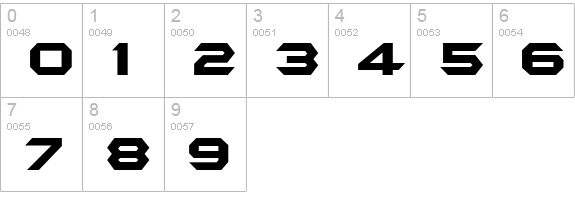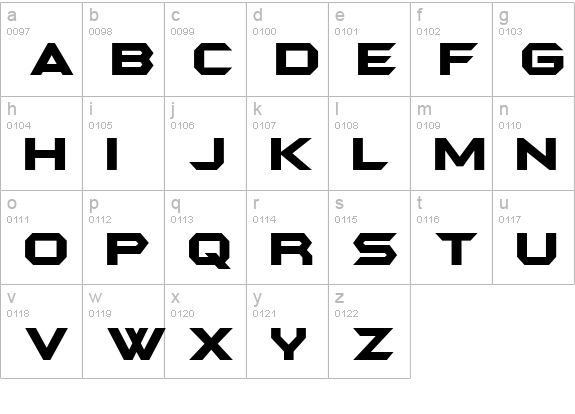
BatmanForeverRoman Font Details
Introducing BatmanForeverRoman font, a sleek and stylish typeface that exudes a sense of mystery and sophistication. This versatile font is perfect for creating eye-catching designs that stand out from the crowd. With its bold and dynamic letterforms, BatmanForeverRoman is sure to make a powerful statement in any project. Best of all, BatmanForeverRoman is available for free download at FontsMarket.com. So why wait? Add this incredible font to your collection today and unleash your creativity like never before.